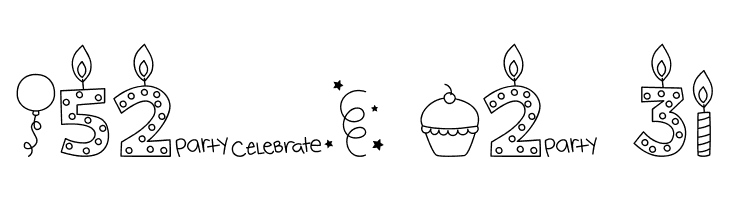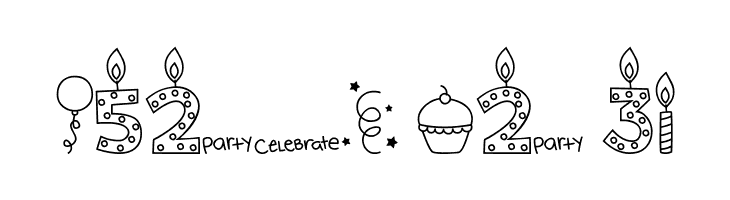
28 Days Later Font
Font by Jens R. Ziehn - www.filmhimmel.com
A bold, distressed font with a grunge, post-apocalyptic style.
7 days Font
Font by Jacob Fisher - www.pizzadude.dk
A sleek, modern font with geometric and minimalist design.
Happy Days Font
A playful and decorative font with bold, dynamic characters and intricate detailing.
7 days fat Font
Font by Jacob Fisher - www.pizzadude.dk
A futuristic, geometric font with a sleek and modern design.
Blessed Day Font
Font by billyargel.blogspot.com - Billy Argel
An elegant script font with flowing, cursive letterforms and ornate flourishes.
Days One Font
A bold, modern sans-serif font with rounded edges and consistent stroke thickness.
Daydream Font
A playful, casual handwritten font with fluid, irregular strokes.
DaysOne-Regular Font
A modern, bold, and rounded font with a clean geometric structure.
Days Font
A bold, modern sans-serif font with rounded edges and a friendly appearance.
Neothic Font
A bold, high-contrast serif font with sharp, elegant serifs.
DaysSansBlack Font
A bold, strong font with thick strokes and a robust appearance.
D Day Stencil Font
A bold, distressed stencil font with a rugged, military-inspired aesthetic.
90 Days Font
A modern, high-contrast font with geometric and futuristic elements.
Daydream Font
Ponter Font
A bold, geometric font with a modern and robust aesthetic.
Great Day Bold Personal Use Font
A bold, dynamic script font with fluid, connected letterforms and elegant curves.
A DAY WITHOUT SUN Font
A tall, narrow font with consistent strokes and a modern, minimalistic design.
Day Poster Black NF Font
Font by Nick Curtis - www.nicksfonts.com
A bold, geometric font with a vintage poster style and modern appeal.
Another day in Paradise Font